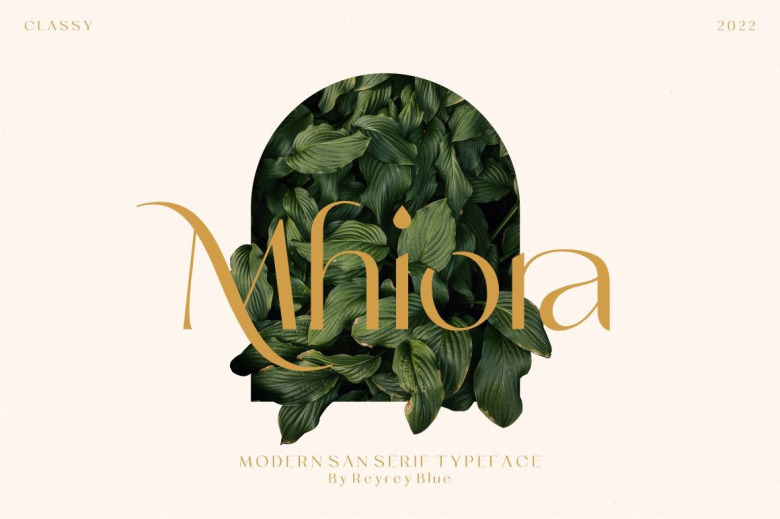
Mhiora Font
Mhiora Sans Serif Font – A contemporary font yet stylish sans serif typeface nodding to the contemporary design. With its shared Timeworn images and symbols, the Regularized is ideal for luxury, elegant and feminine projects. It includes many choices of alternatives and combinations absolutely ideal for generating styles such as branding, logos, invitations, headings and many others.
Mhiora Sans Serif Font